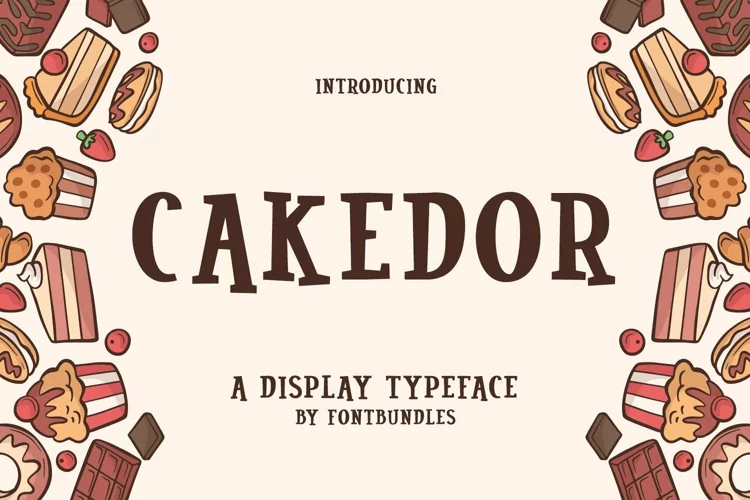
Web Font Cakedor
Cakedor is a display typeface. Perfect for make branding, logo, name card, business card, badges, poster design, packaging, label and many more.